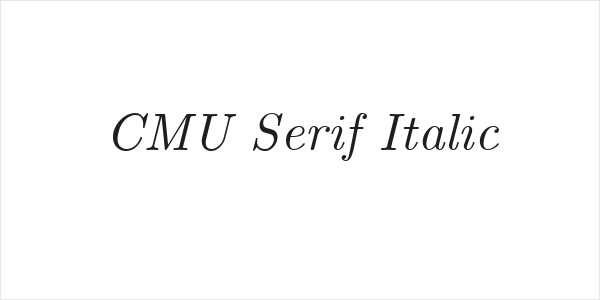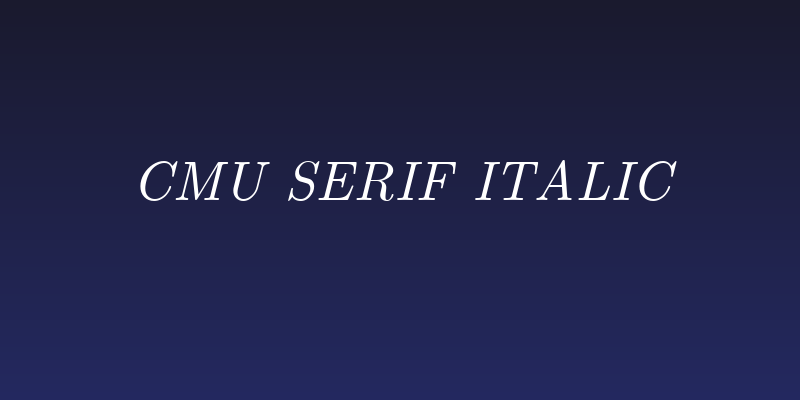
CMU Serif Italic Font
CMU Serif Italic Description
This typeface features a classic serif design with an elegant italic style. The letters are gracefully slanted, providing a sense of motion and sophistication. The serifs are well-defined, adding a touch of tradition and formality. The lowercase letters have a smooth, flowing appearance, while the uppercase letters maintain a strong, authoritative presence. The numerals are clear and distinct, making them easily readable. Special characters are designed with the same attention to detail, ensuring consistency throughout the font.
| Proposed Projects | Ideal for formal invitations, elegant branding, editorial design, and classic book typesetting. |